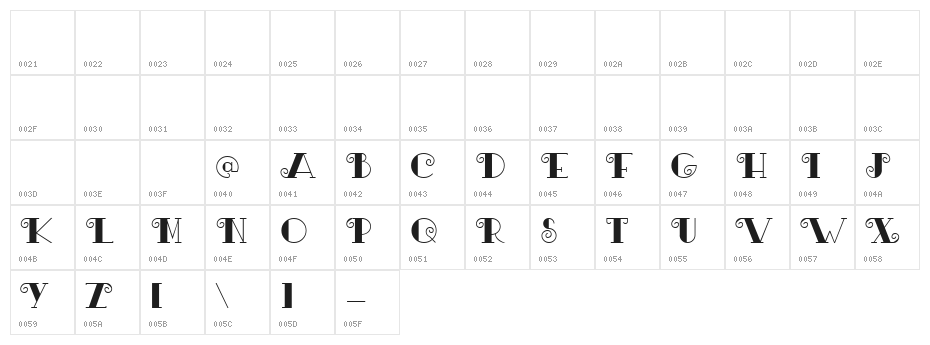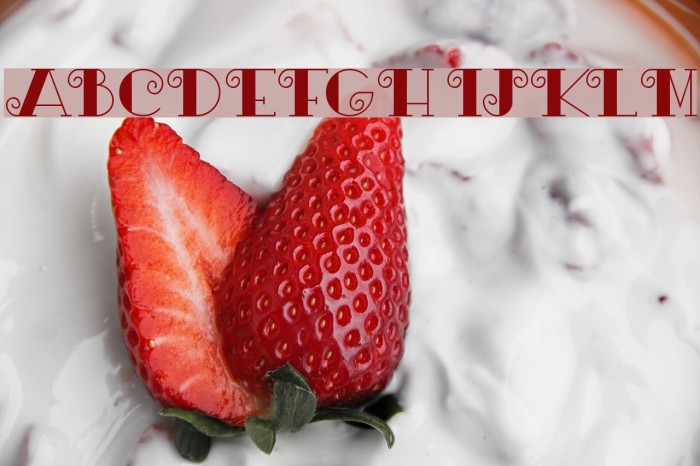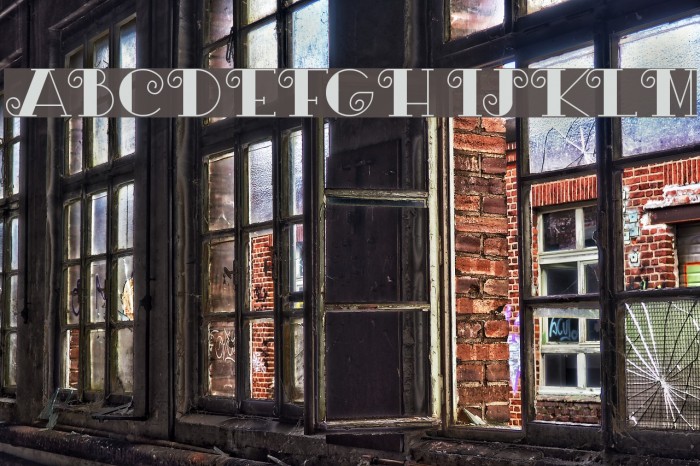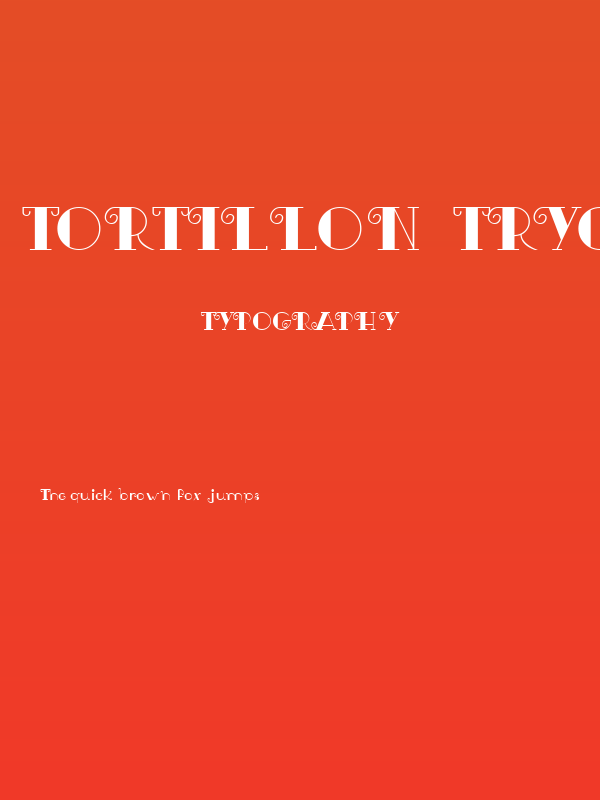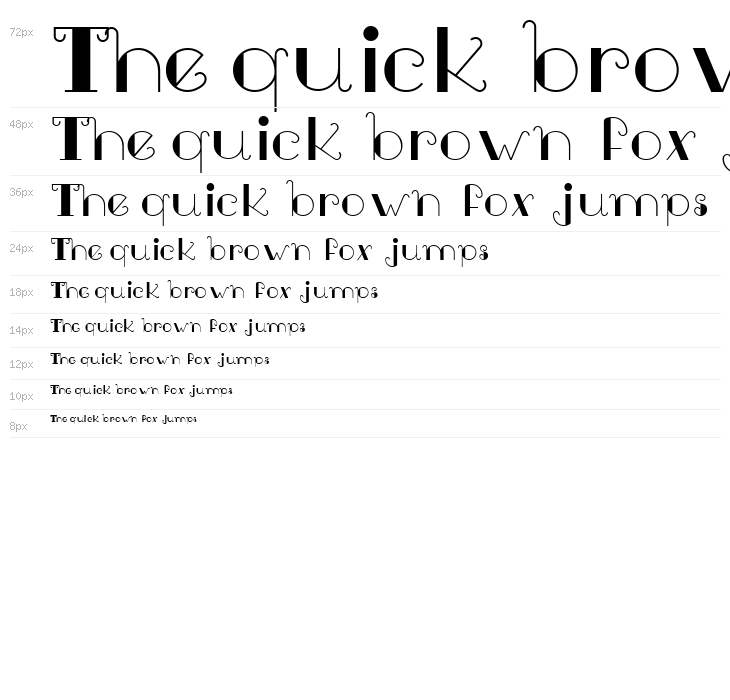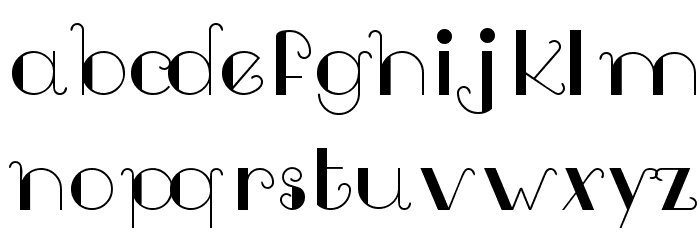
Tortillon Tryout Font
Tortillon Tryout Description
This font features a unique and decorative style with a playful twist. The uppercase letters are characterized by elegant swirls and curls, adding a whimsical touch to the overall design. The lowercase letters maintain a similar decorative flair, with some characters incorporating loops and intricate details. The numerals and special characters are designed to match the ornate style of the alphabet, ensuring a cohesive look across all elements. This font is ideal for projects that require a touch of elegance and creativity, making it suitable for invitations, branding, and artistic designs.
Use CaseHeadlines, Logos, Artistic designs
Proposed ProjectsIdeal for wedding invitations, branding, artistic posters, and creative design projects.